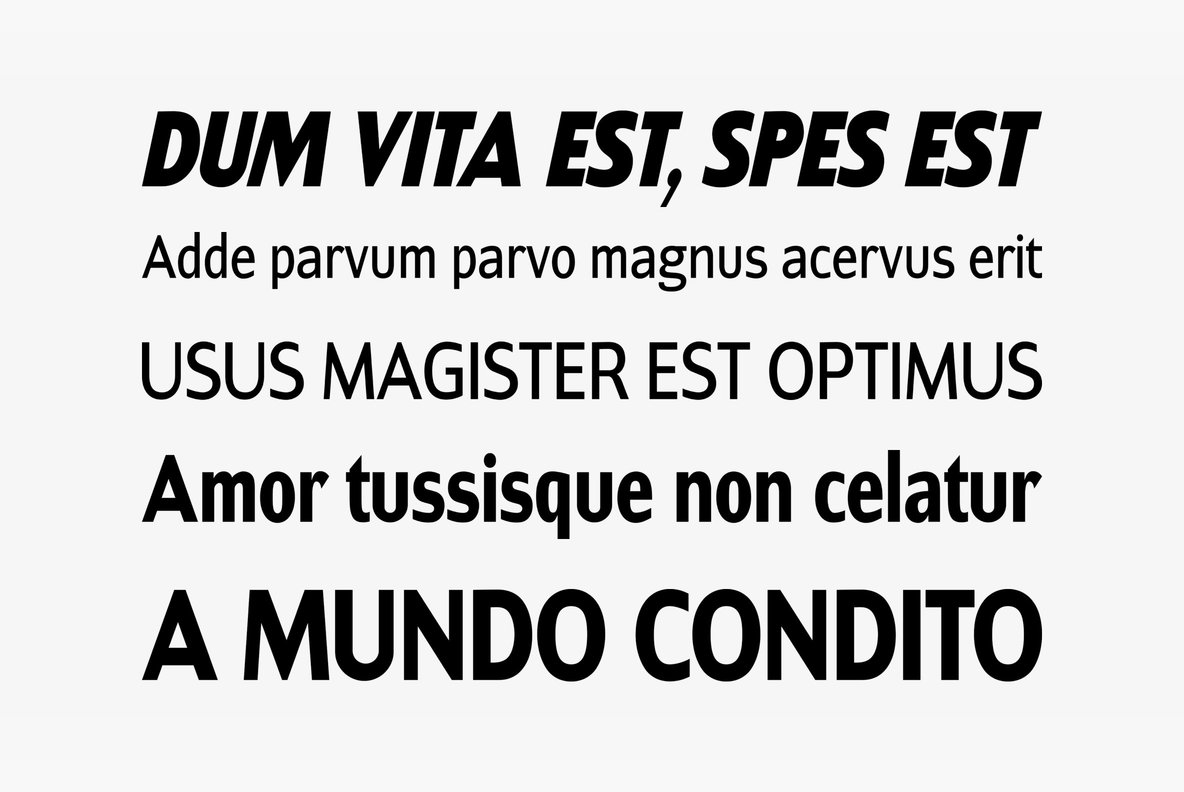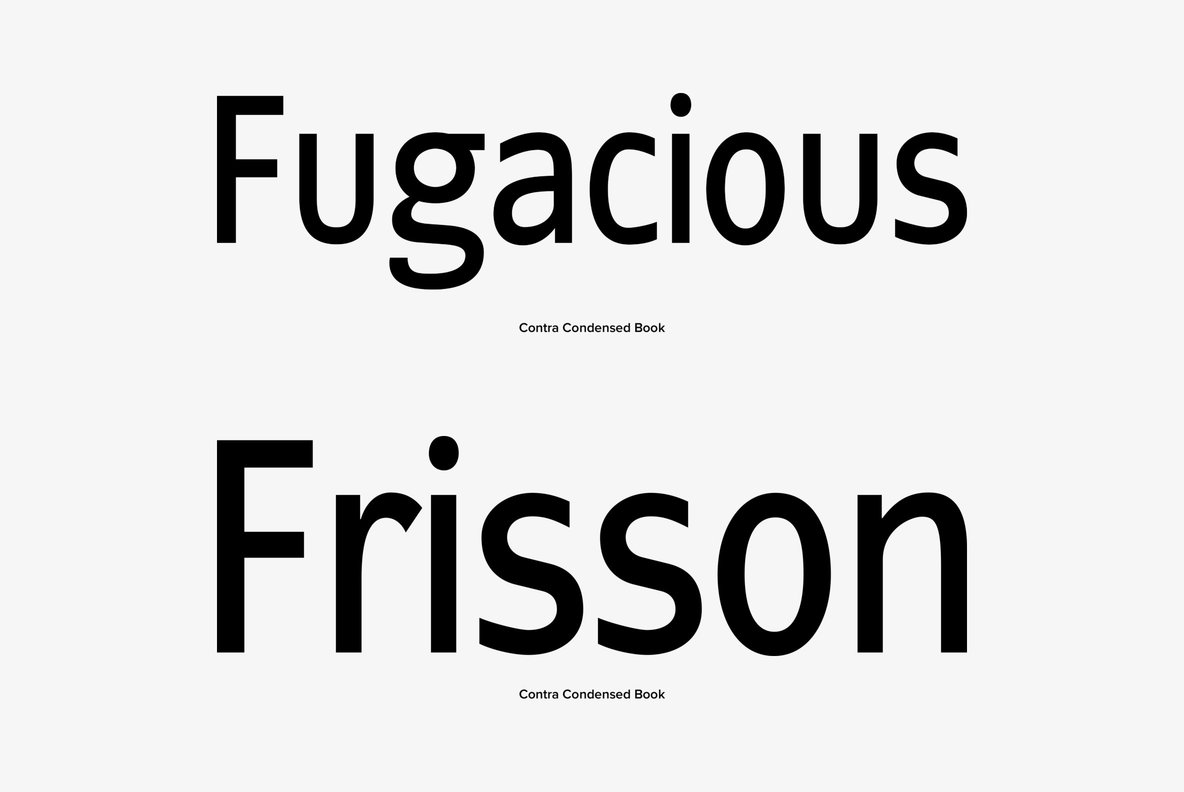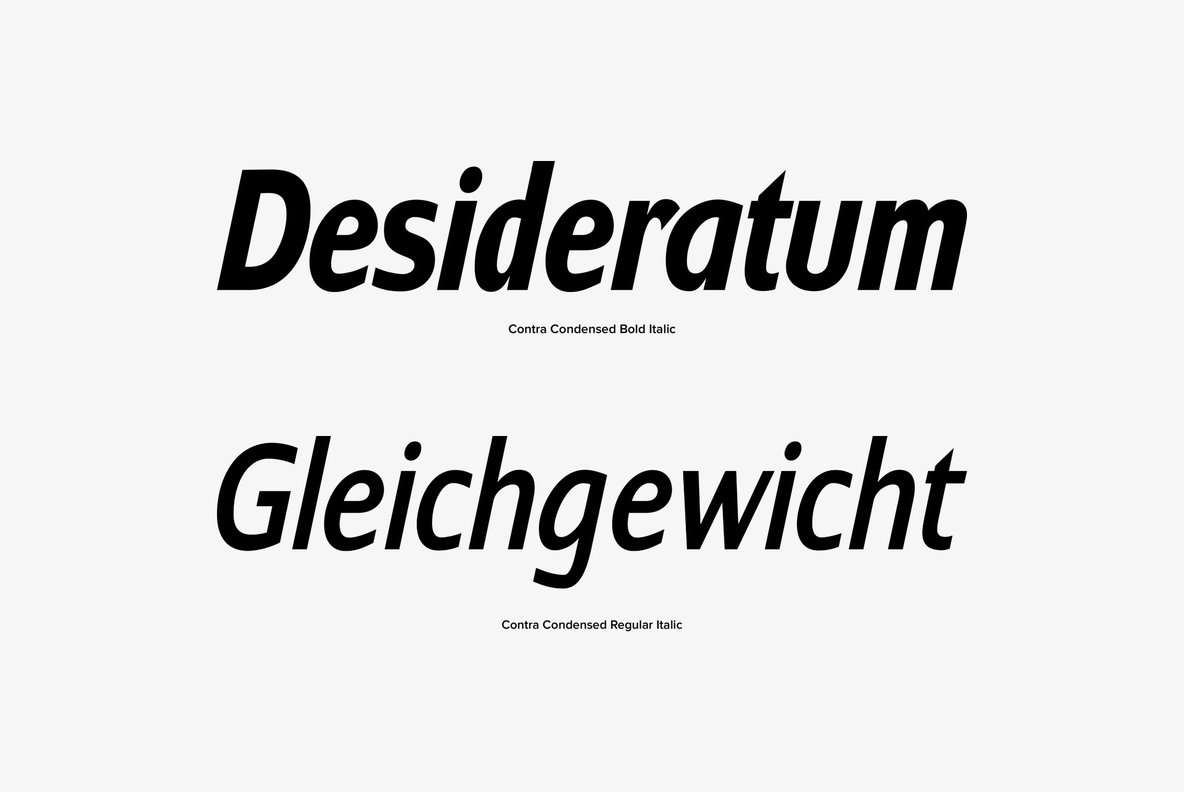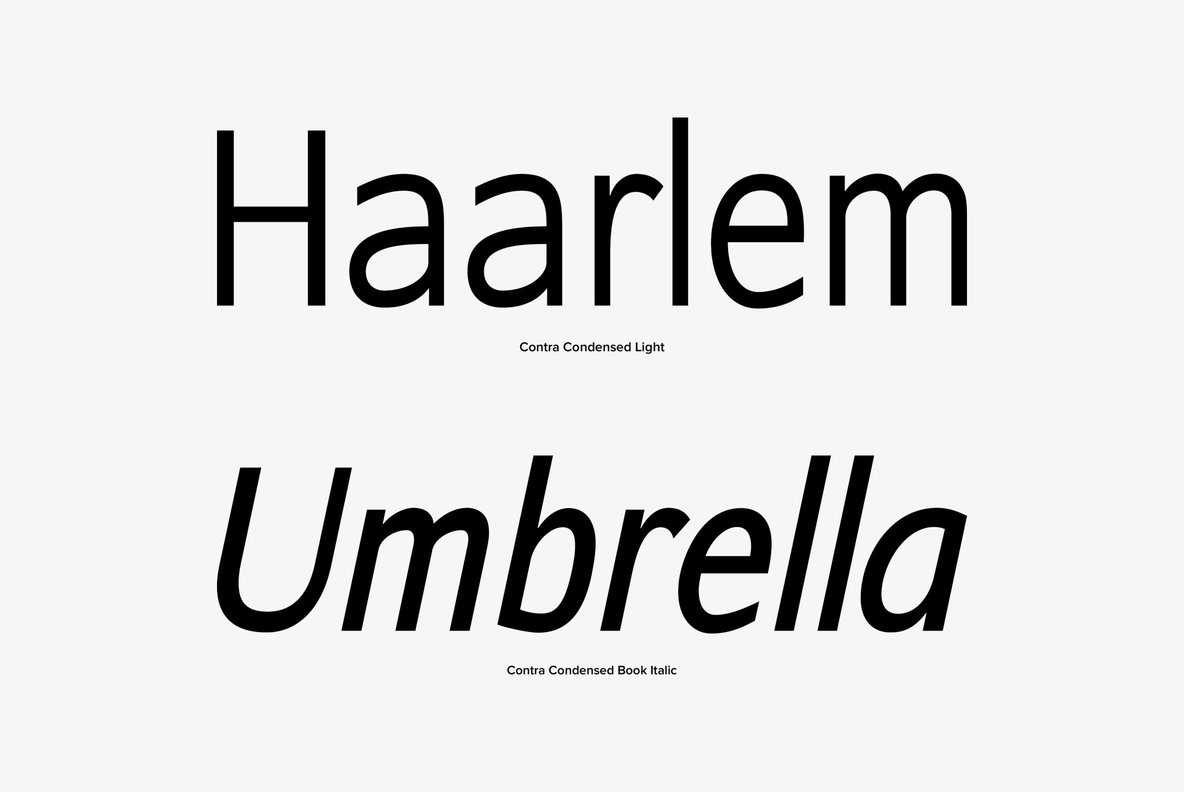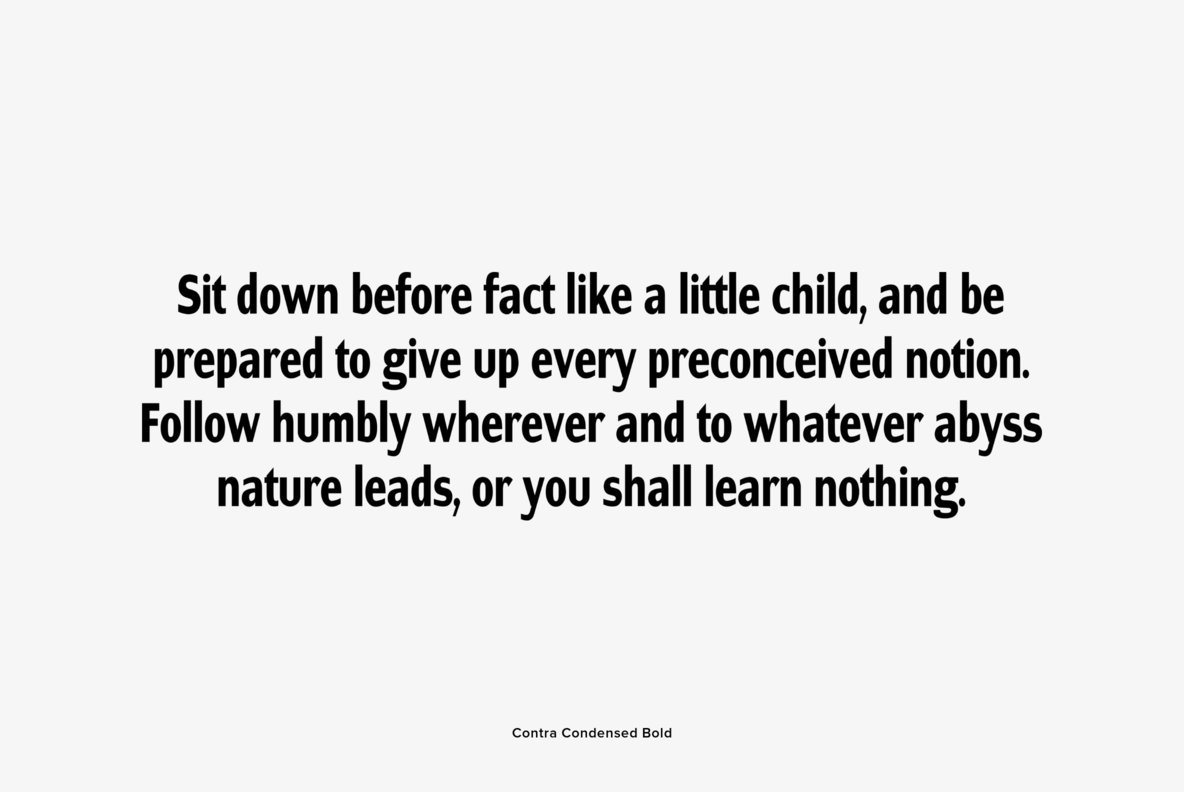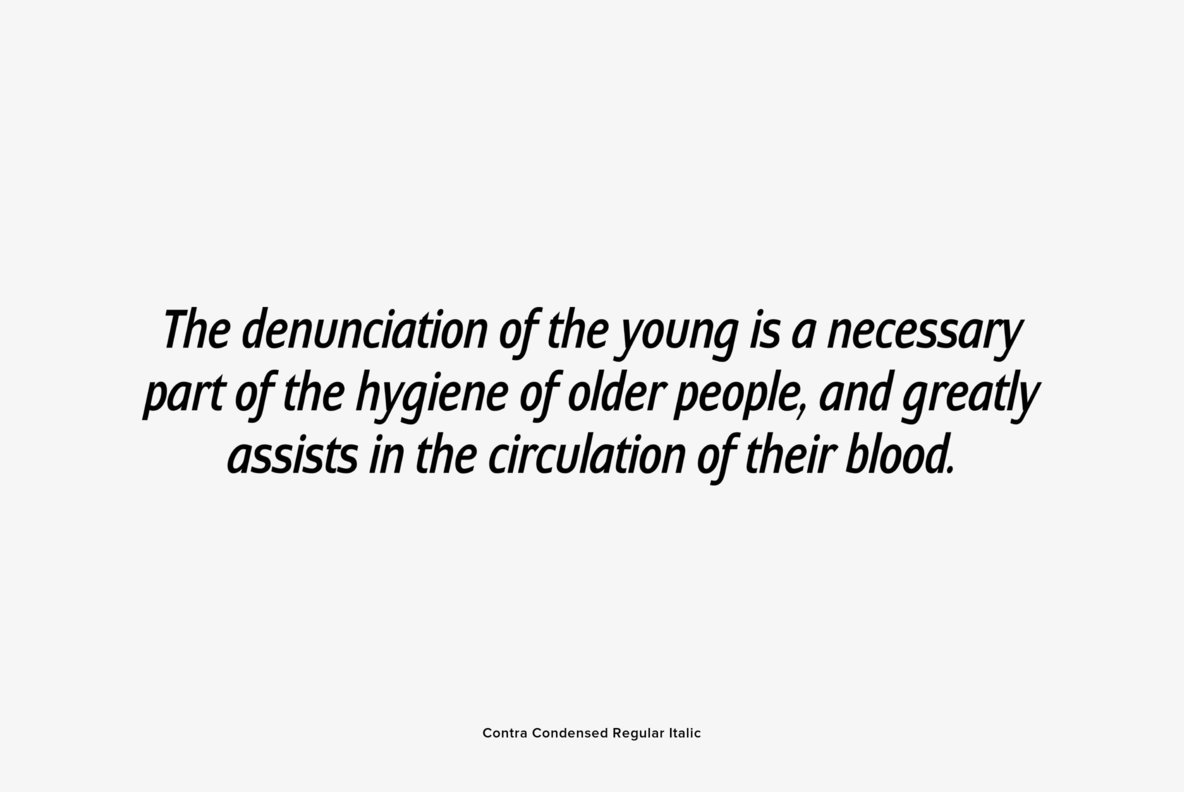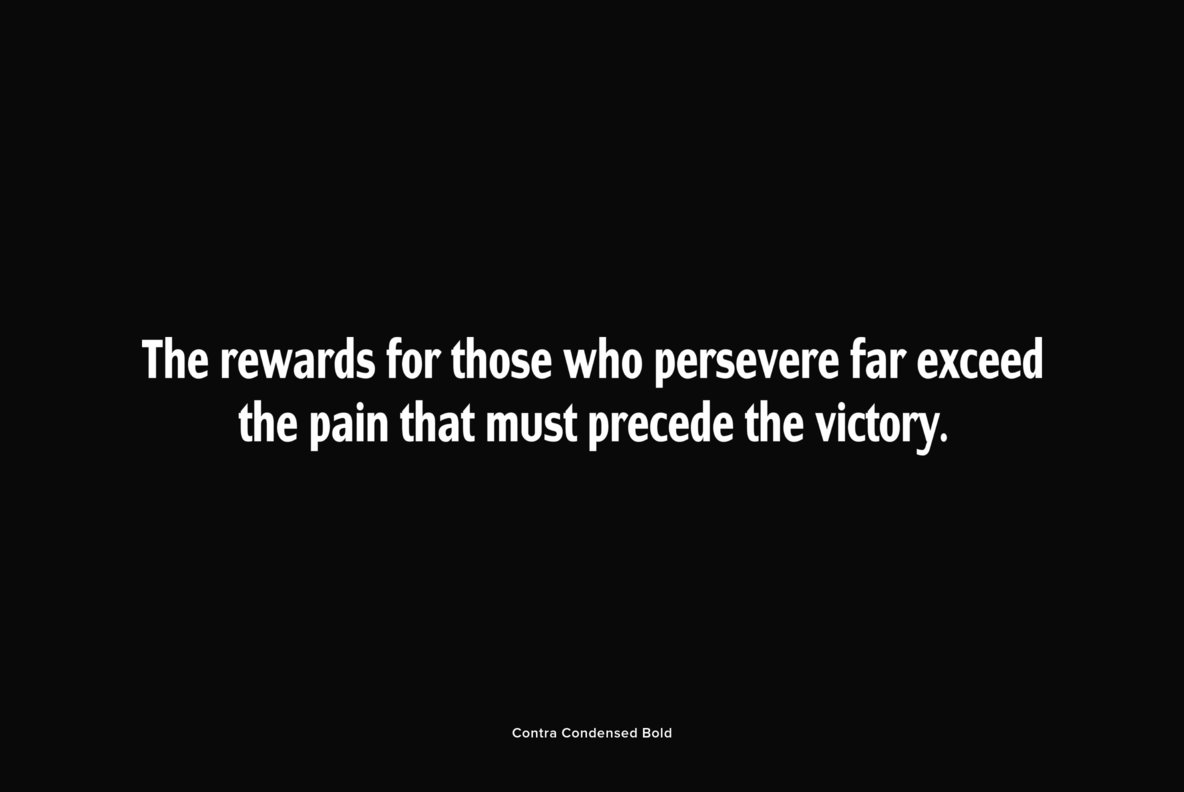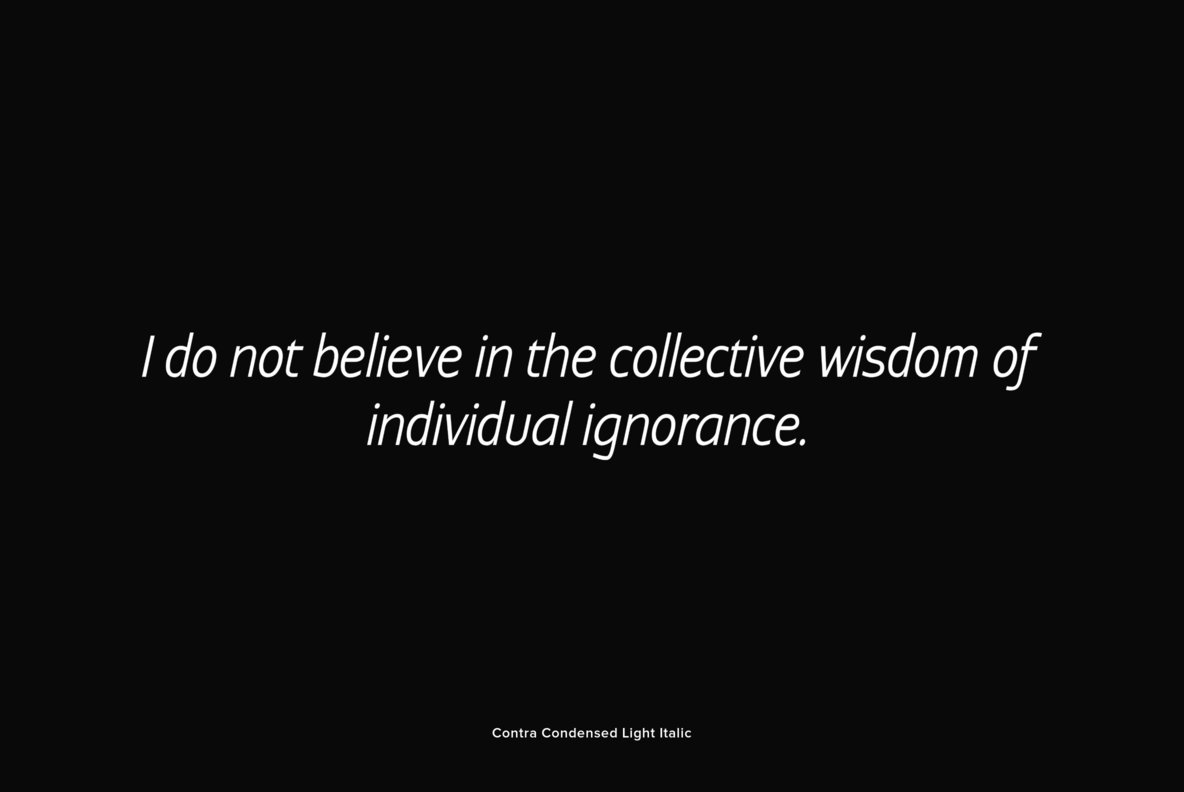
Contra Condensed Font
Contra Condensed is the condensed version of my Contra family of fonts. It is very condensed, but not yet narrow. It is well suited in all situations where one needs to save space.